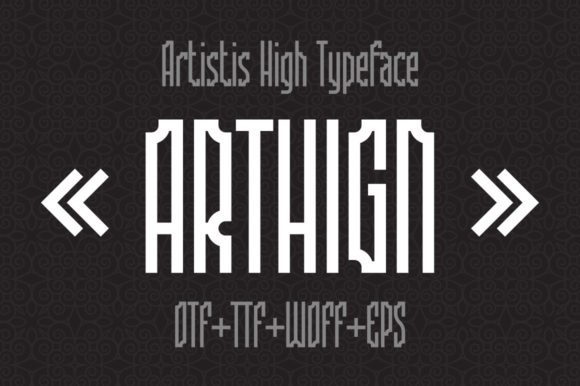
Introducing Arthign Font: The Cool, Robotic, and Unique Display Font
Are you looking for a font that can add a dynamic touch to your web designs, business cards, or any other visual project? Look no further than Arthign Font. This cool, robotic, and unique display font is designed to make your text stand out and leave a lasting impression on your audience.
What is Arthign Font?
Arthign Font is a modern, sans-serif font that is characterized by its clean lines, geometric shapes, and futuristic feel. The font is designed to be highly legible, even at small sizes, making it perfect for use in a variety of applications, from digital screens to print materials.
Key Features of Arthign Font
So, what makes Arthign Font so special? Here are some of its key features:
- Unique and distinctive design: Arthign Font has a one-of-a-kind design that sets it apart from other fonts. Its robotic and futuristic feel makes it perfect for projects that require a cutting-edge look.
- Highly legible: Despite its unique design, Arthign Font is highly legible, even at small sizes. This makes it perfect for use in body text, headings, and titles.
- Versatile: Arthign Font is a versatile font that can be used in a wide range of applications, from web designs and business cards to posters, flyers, and more.
- Easily customizable: Arthign Font is easy to customize, allowing you to adjust its size, color, and style to fit your project’s needs.
Uses of Arthign Font
Arthign Font is a versatile font that can be used in a wide range of applications. Here are some ideas to get you started:
- Web designs: Arthign Font is perfect for use in web designs, including website headers, titles, and body text.
- Business cards: Add a dynamic touch to your business cards with Arthign Font. Its unique design and high legibility make it perfect for use in business card designs.
- Posters and flyers: Arthign Font is a great choice for posters and flyers, adding a bold and eye-catching touch to your designs.
- Social media graphics: Use Arthign Font to create eye-catching social media graphics, including Facebook posts, Twitter headers, and Instagram stories.
Benefits of Using Arthign Font
So, why should you choose Arthign Font for your next project? Here are some benefits of using this unique and versatile font:
- Adds a dynamic touch: Arthign Font adds a dynamic touch to your designs, making them stand out and leave a lasting impression on your audience.
- Improves legibility: Arthign Font is highly legible, even at small sizes, making it perfect for use in body text, headings, and titles.
- Increases brand recognition: By using Arthign Font in your designs, you can create a consistent brand image that will help to increase brand recognition and awareness.
- Easily customizable: Arthign Font is easy to customize, allowing you to adjust its size, color, and style to fit your project’s needs.
Tips for Using Arthign Font
Here are some tips for using Arthign Font in your designs:
- Use it sparingly: Arthign Font is a bold and eye-catching font, so use it sparingly to avoid overwhelming your audience.
- Pair it with other fonts: Arthign Font pairs well with other fonts, so experiment with different font combinations to create a unique look.
- Adjust its size and color: Adjust the size and color of Arthign Font to fit your project’s needs and create visual interest.
Arthign Font is a cool, robotic, and unique display font that is perfect for adding a dynamic touch to your web designs, business cards, or any other visual project. Its highly legible design, versatility, and ease of customization make it a great choice for designers and non-designers alike. So, why not give Arthign Font a try and see how it can elevate your designs?